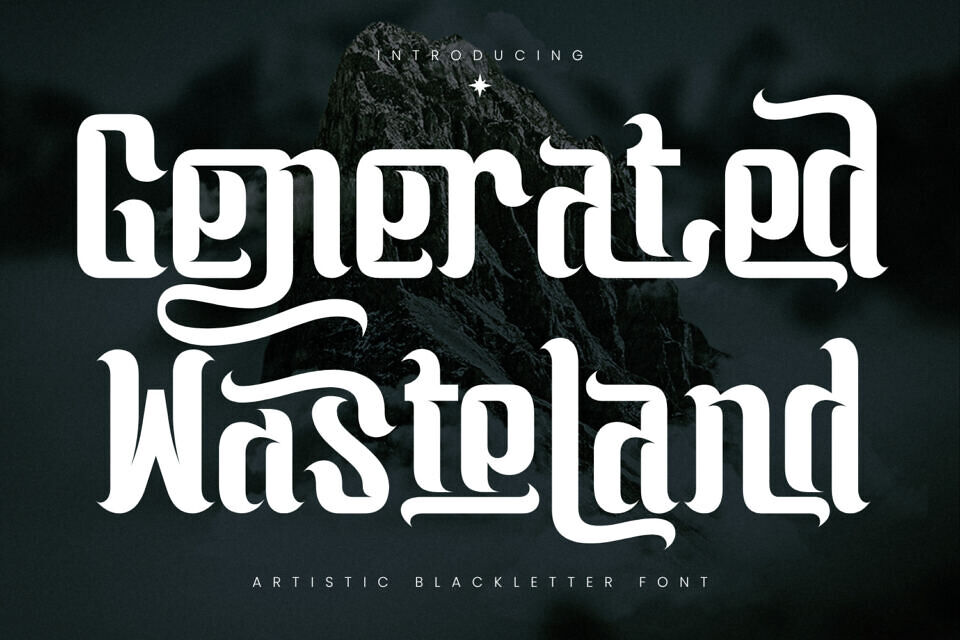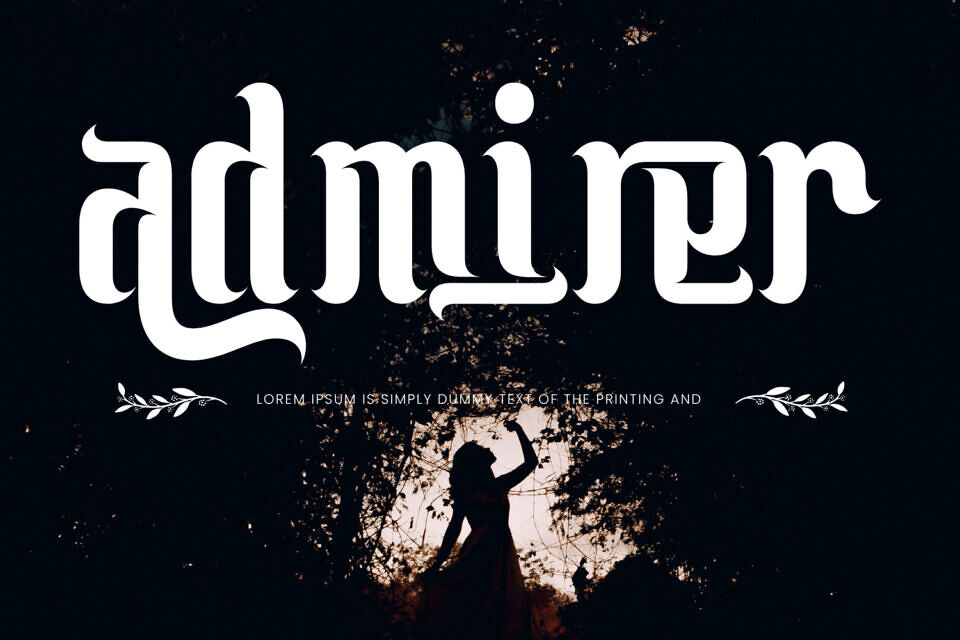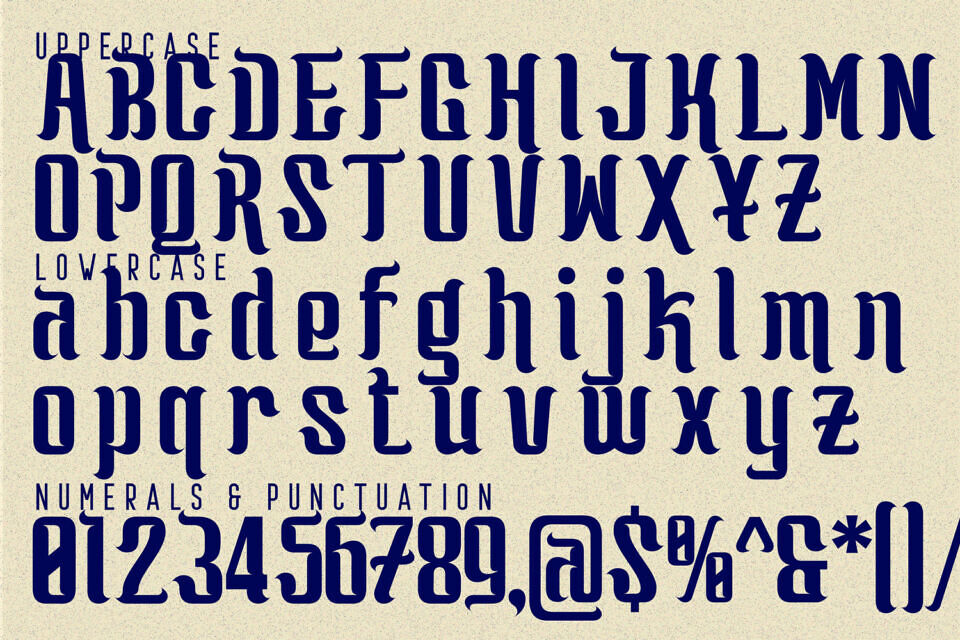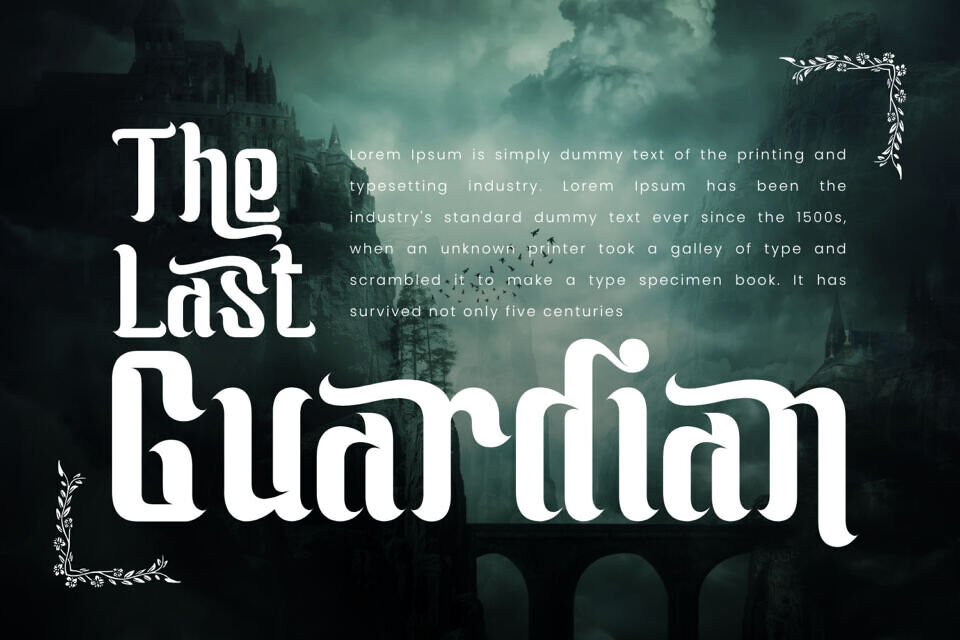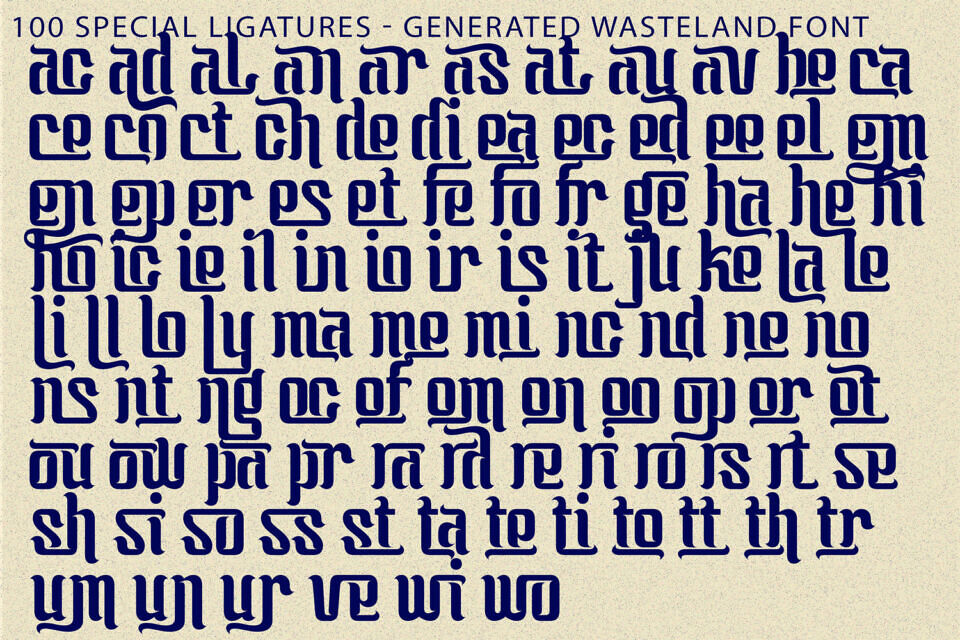
Generated Wasteland is an elegant decorative serif display font inspired by vintage calligraphy and medieval typography. Featuring beautifully crafted letterforms with high contrast strokes, this typeface combines classic serif structure with expressive swashes and flowing flourishes.
Each character is designed with refined curves and artistic extensions, creating a graceful rhythm and a luxurious visual appeal. The intricate ligatures and ornamental details allow for seamless letter connections, making your text feel fluid and sophisticated.